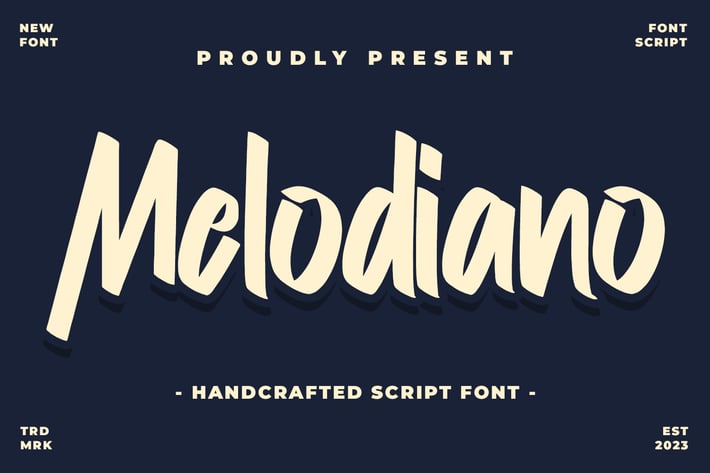
Melodiano Font
Melodiano script font. This font is good for logo design, Social media, Movie Titles, Books Titles, a short text even a long text letter and good for your secondary text font with signature or script typeface. Make a stunning work with Melodiano font.